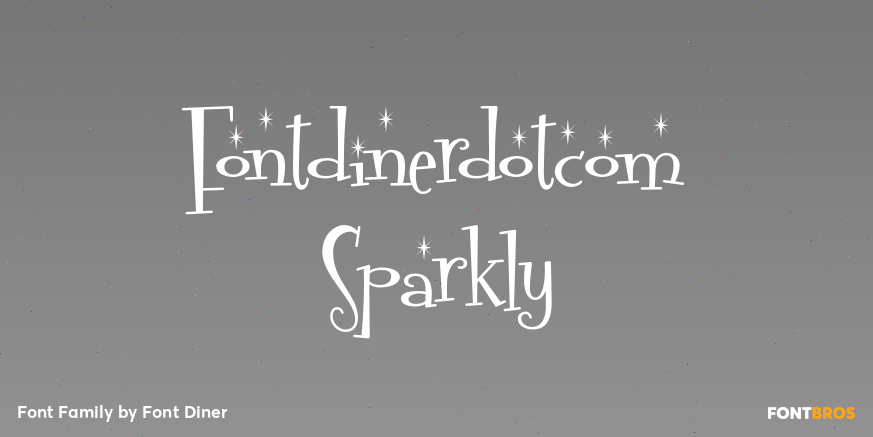
HomeFont BrosRetro (1936-1965)Fontdinerdotcom Sparkly Retro (1936-1965)Special EffectSerifWacky Fontdinerdotcom Sparkly FacebookXPinterestWhatsApp 1 of 1 About Fontdinerdotcom Sparkly Like our Fontdinerdotcom font, but nothing makes a font come alive better than sparklies.  DOWNLOAD NOW People also explored The Bentley Font Naive Deco Sans Font Kinderplay Font Gerald Battom Font Airythey Font Jagalana Font Rosetype Font Kelana Moris Font Crashburn Font 398 0 TagsFontdinerdotcom Sparkly Font Previous articleSaltyNext articleSteak LEAVE A REPLY Cancel reply Comment: Please enter your comment! Name:* Please enter your name here Email:* You have entered an incorrect email address! Please enter your email address here Website: Save my name, email, and website in this browser for the next time I comment. Personal Use Free Scoothlane Personal Use Free Read more about this font Rhetorical Personal Use Free Read more about this font Butter Belly Personal Use Free Read more about this font England Personal Use Free Read more about this font BLOG Exploring Font Trends Shaping Communication in the Digital Era Fonts, like all design elements, are subject to trends. They play a crucial role in communicating a brand's personality,... Best Fonts for T-Shirt Design – Top 2025 Picks 5 Fonts That Will Dominate Design Trends in 2026 Fonts That Capture the Spirit of New York City